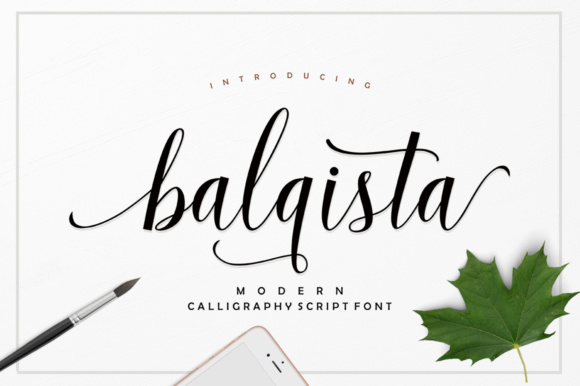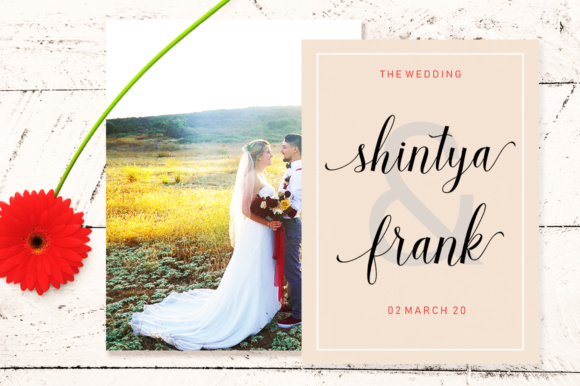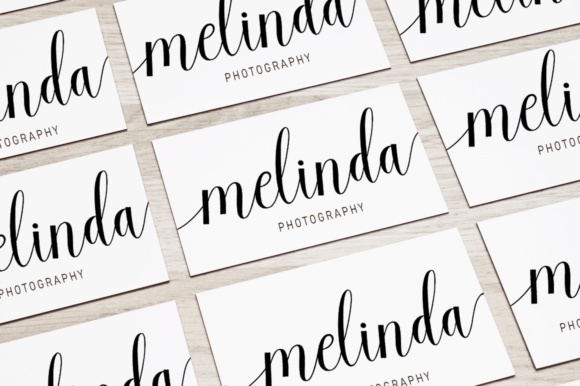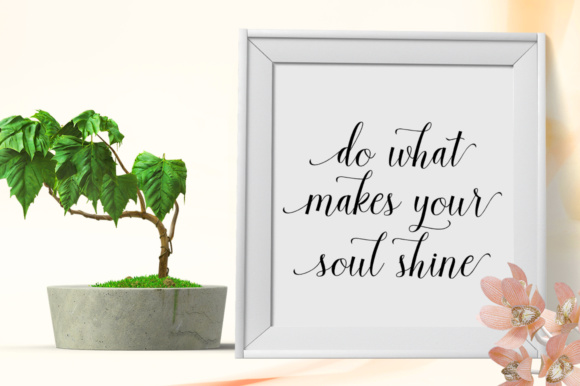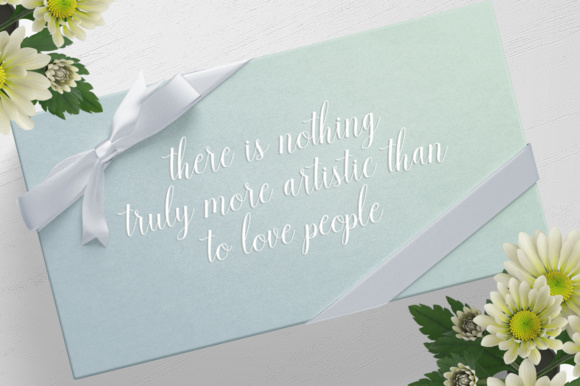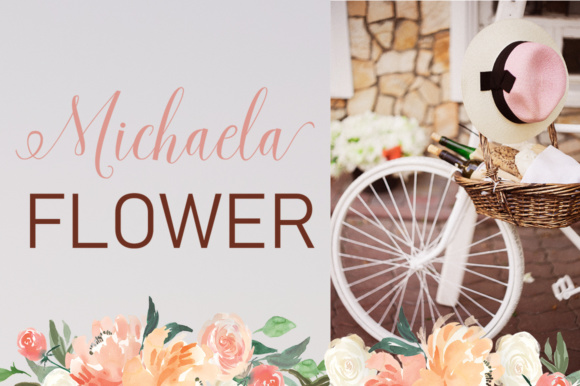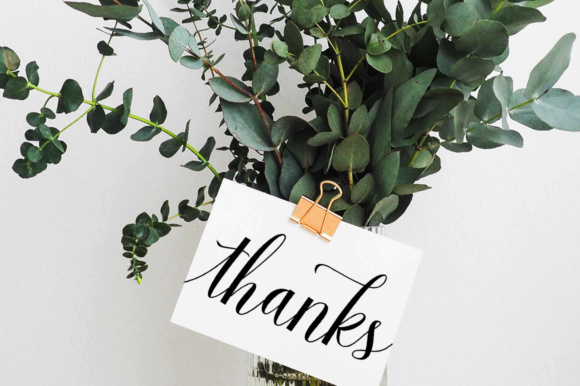
Balqista Script Font
About Balqista Script Font
The Balqista is a modern script typeface. It has a good readability and is easy to use.
Perfect to give your design an elegant feel!